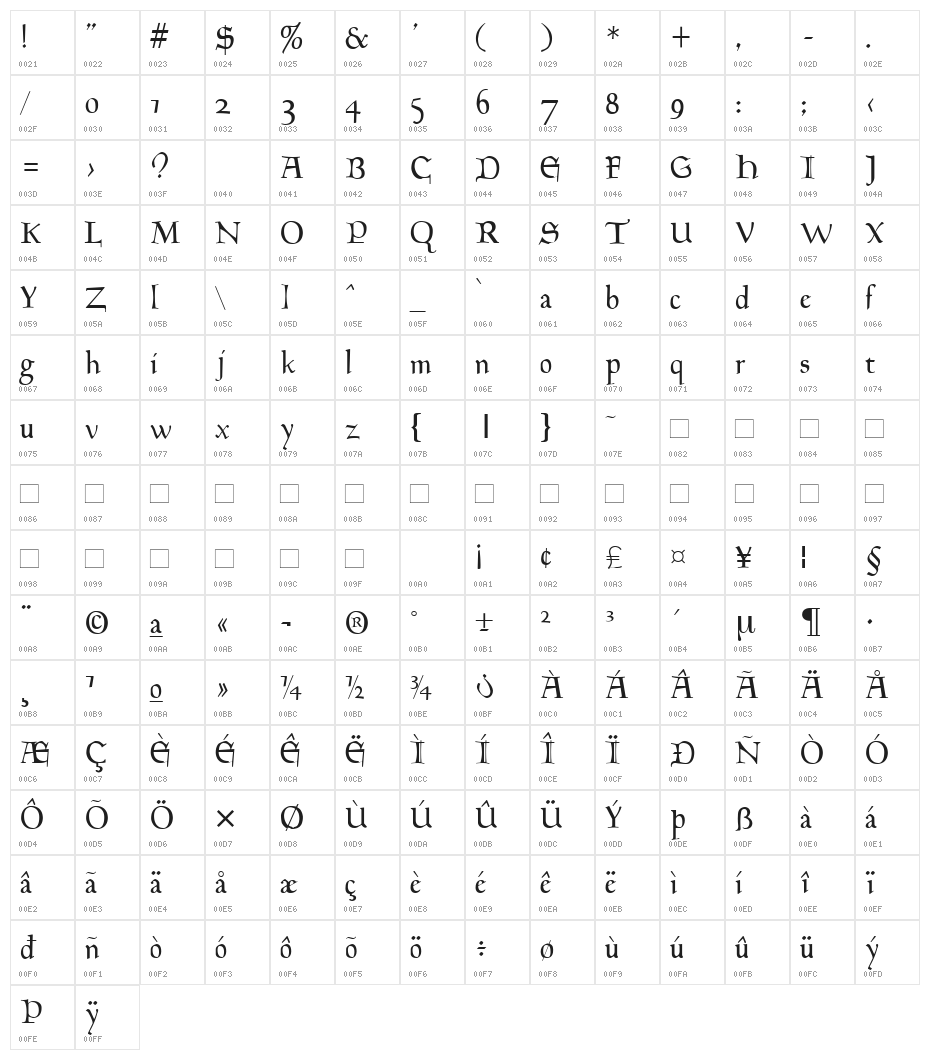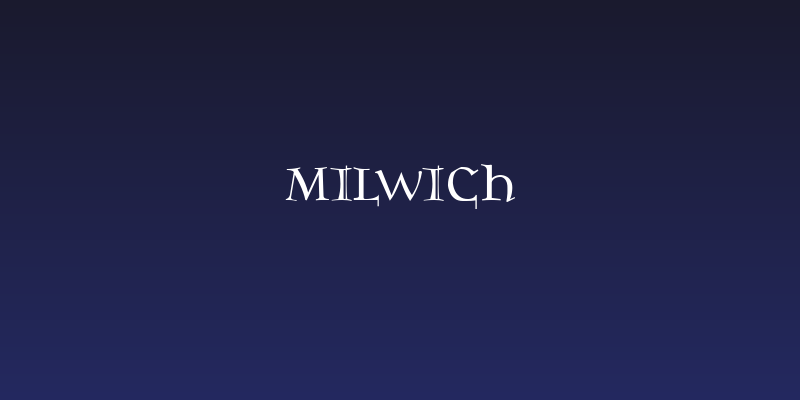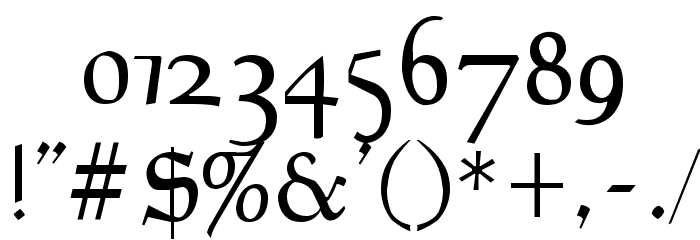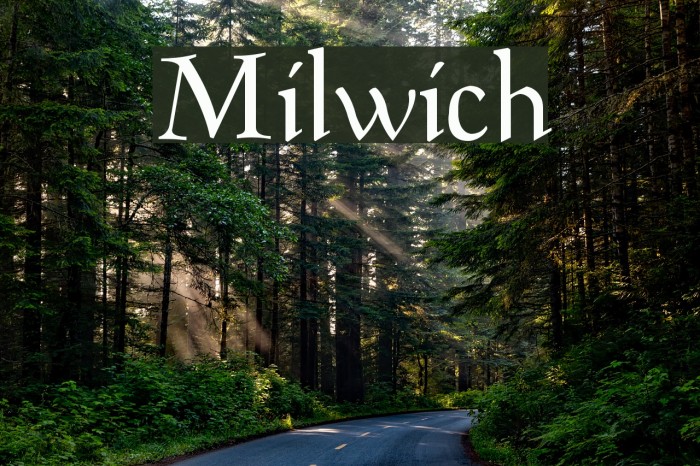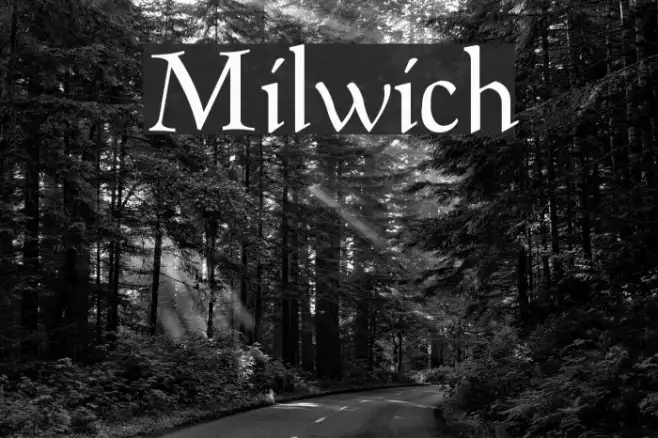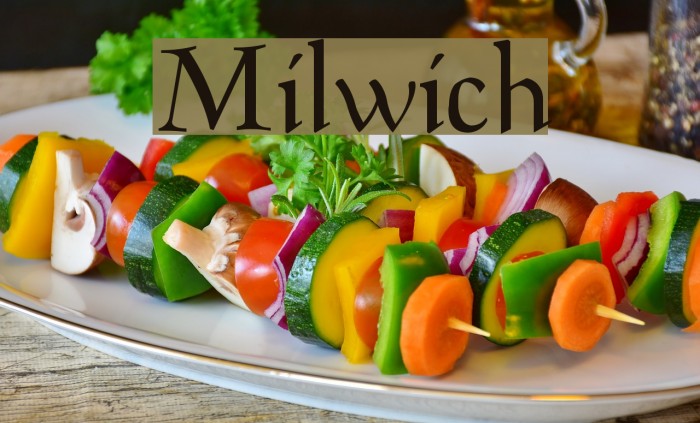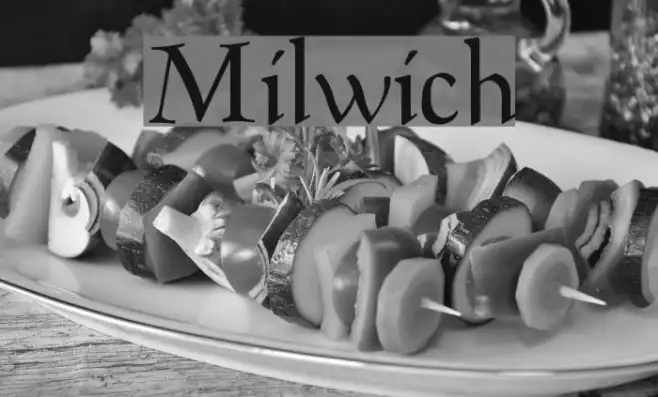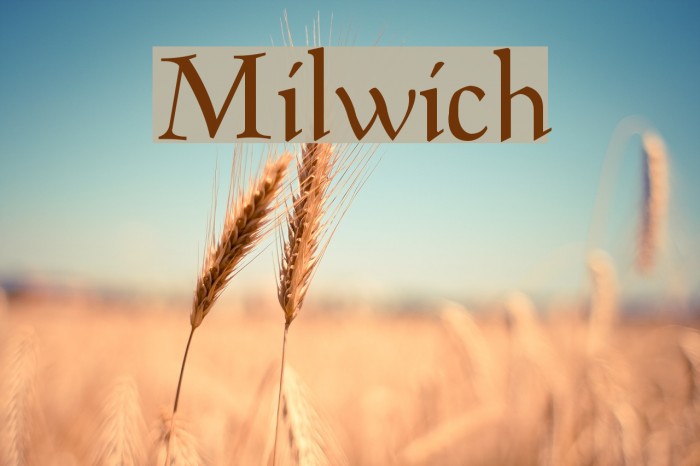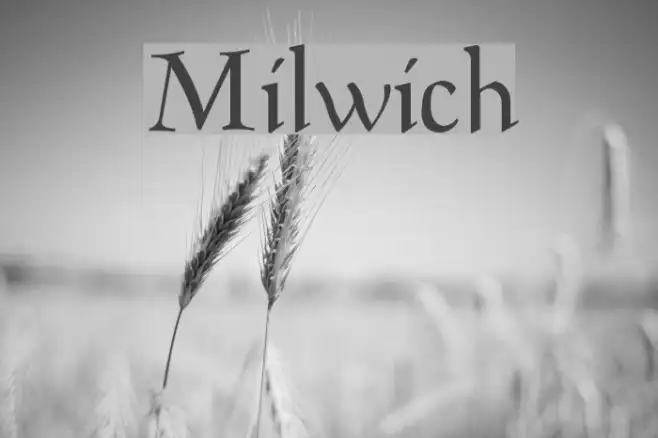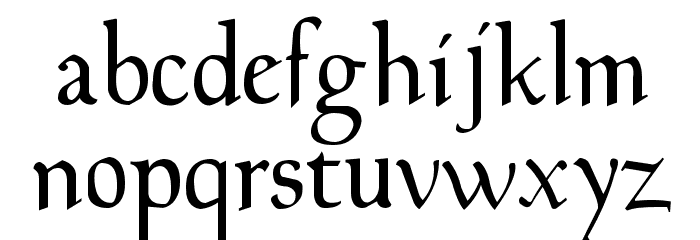
Milwich Font
Milwich Description
This font features a unique blend of traditional and modern elements, characterized by its sharp serifs and distinct angular cuts. The uppercase letters exhibit a strong presence with their bold, geometric shapes, while the lowercase letters maintain a more fluid and organic form. The numerals are elegantly styled, complementing the overall aesthetic. Special characters are designed with the same attention to detail, ensuring consistency throughout. This font's design is both artistic and functional, making it suitable for a variety of creative applications.